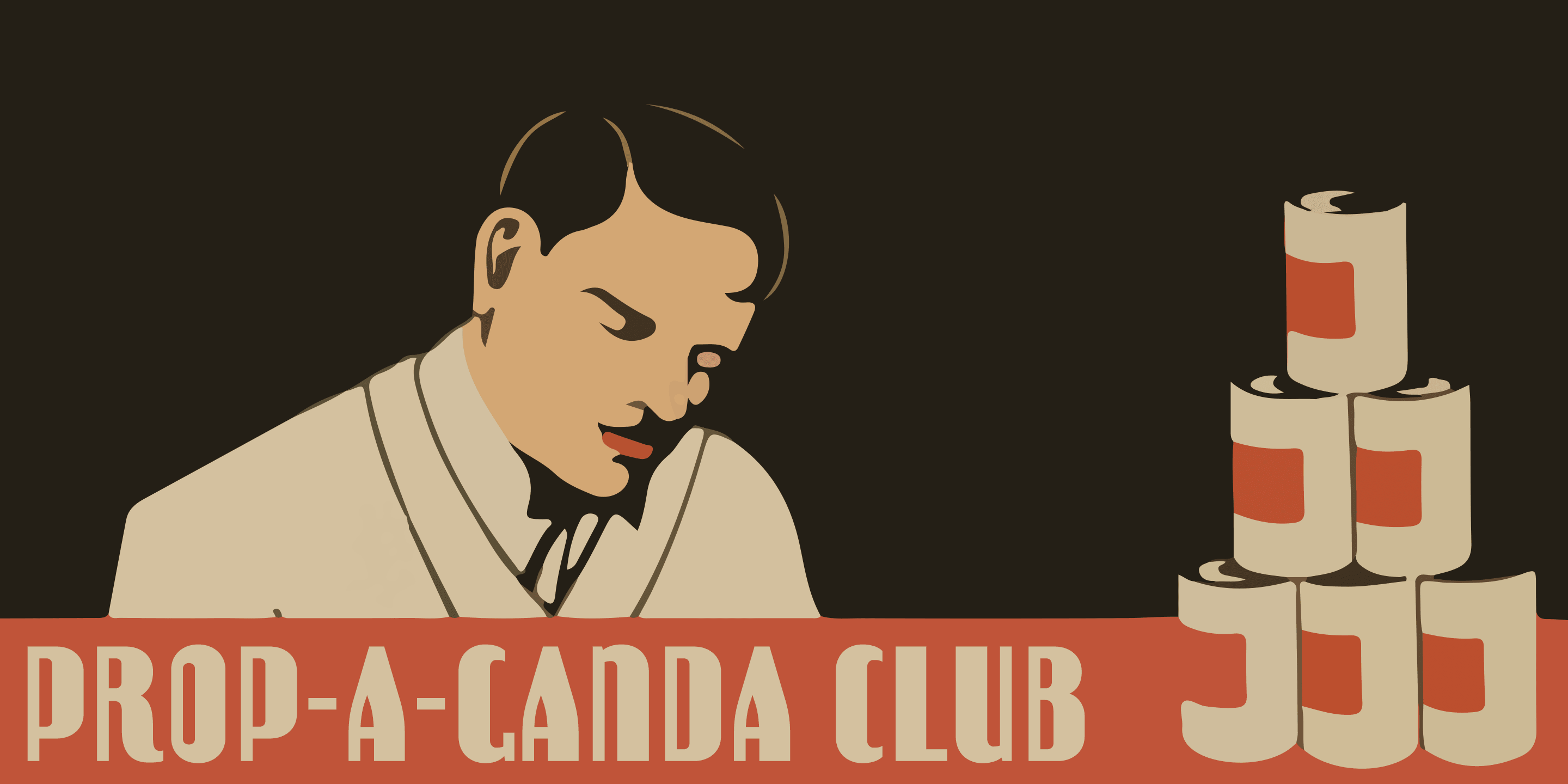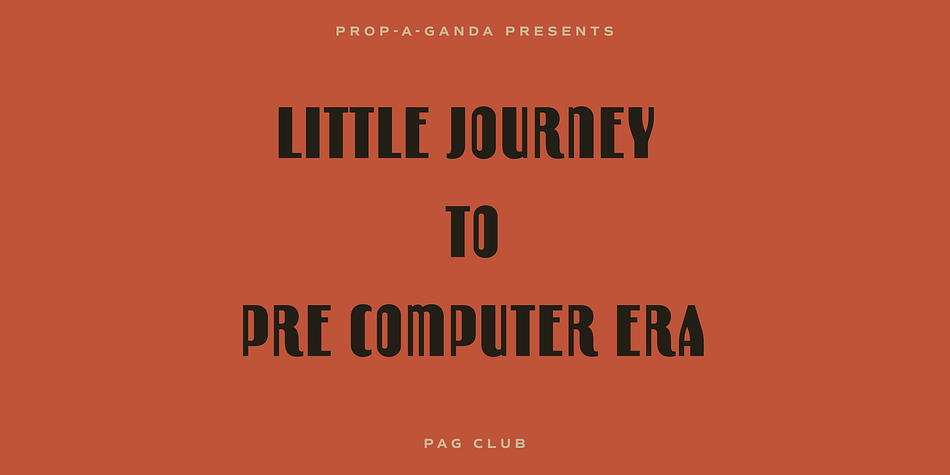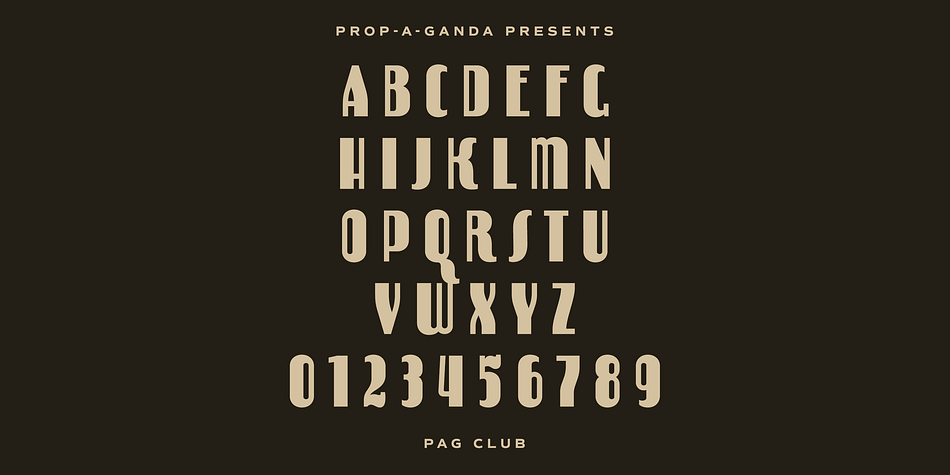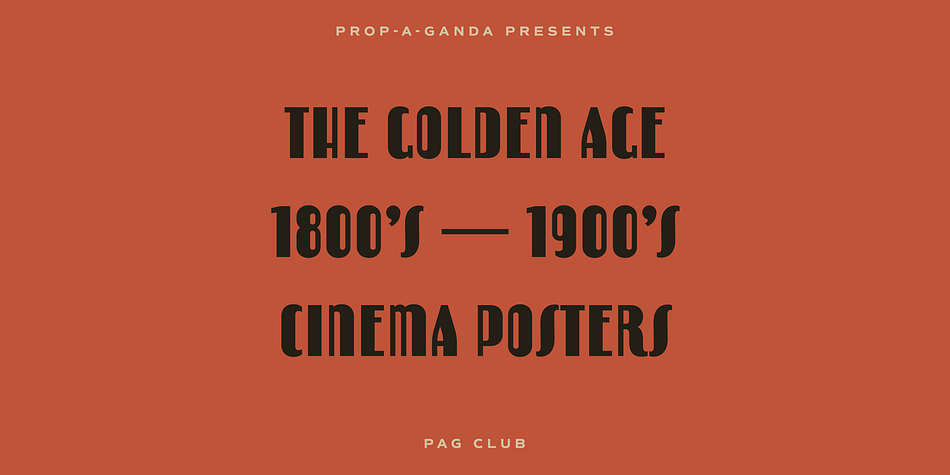
PAG Club is a retro font published by Dharma Type.
Prop-a-ganda(PAG) offers retro-flavored fonts inspired by lettering on retro propaganda posters, retro advertising posters, retro packages all the world over. This is perfect font for your retrospective project.
PAG Club is a condensed font with a funny and retro character. The features of the typeface is in unusual figures of unbalanced characters. Ideal font to all kinds of retro design project.